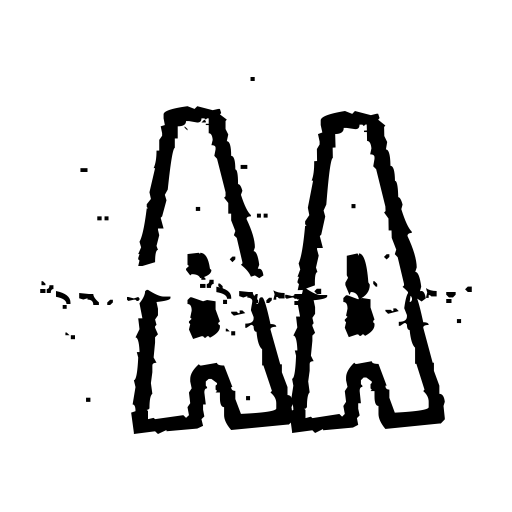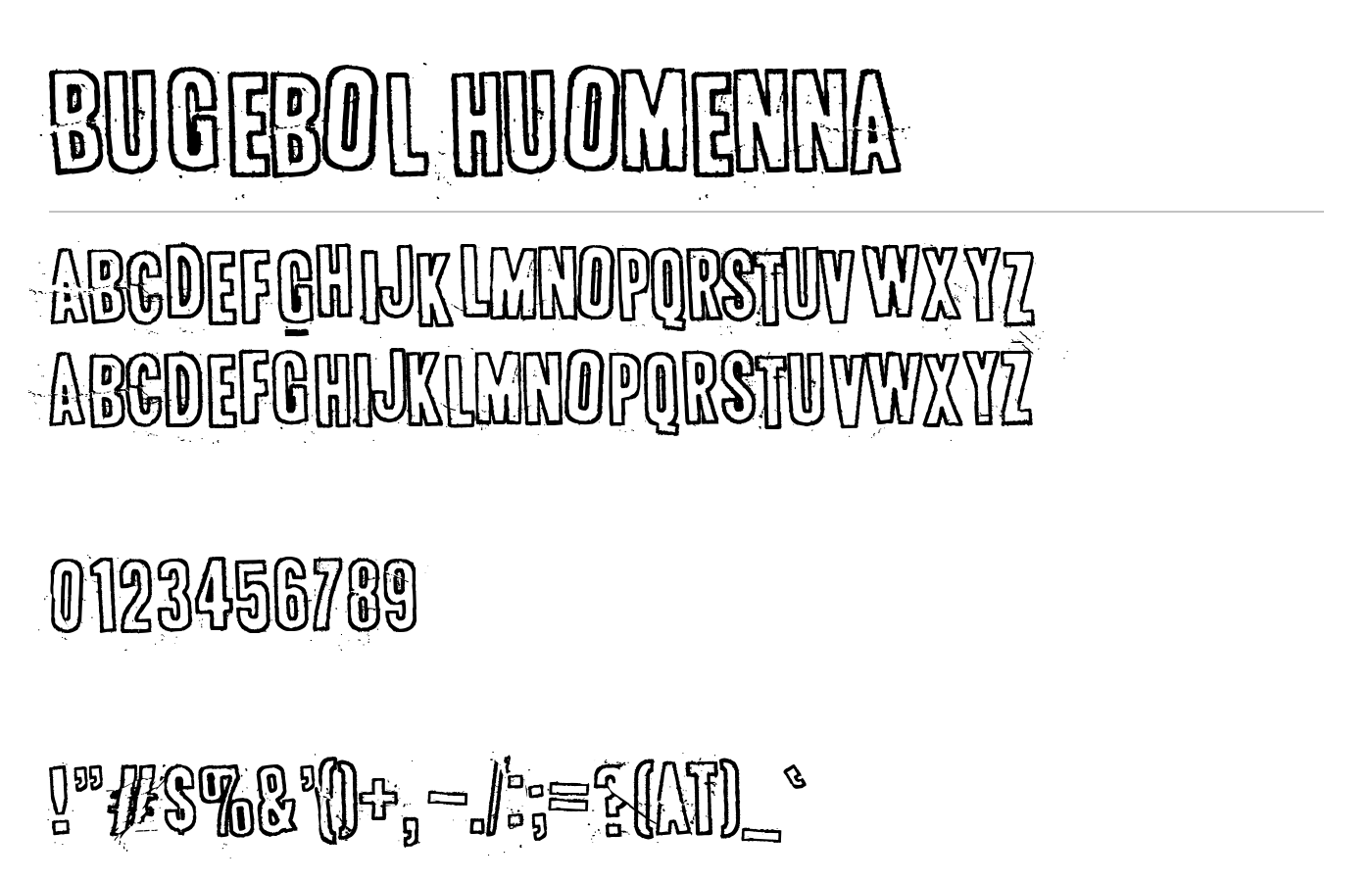
Bugebol huomenna is a bold, condensed sans serif font with a distressed, grunge texture that adds character and a worn, vintage feel. Its tall, narrow letterforms feature slightly uneven edges and irregular ink splatters, making it ideal for edgy, urban, or retro designs that want to convey a handcrafted and energetic vibe. This font works great for bold headlines, posters, and branding that needs a strong, attention-grabbing style with a raw, artistic touch.
Bugebol huomenna Font
About Bugebol huomenna Font